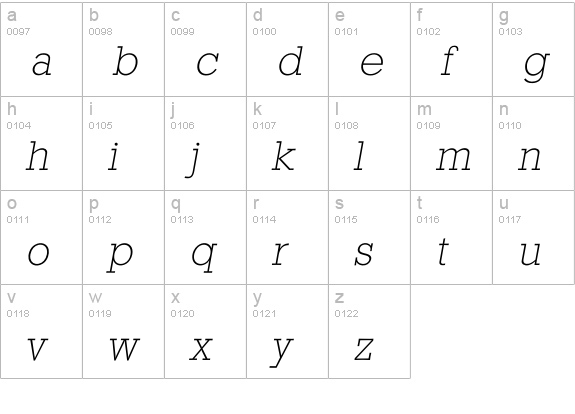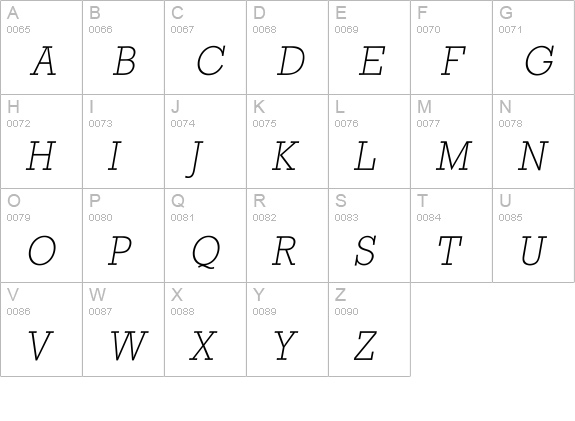
Introducing the mesmerizing Istafford Xlight font, a captivating typeface that exudes elegance and sophistication. With its delicate and slender curves, this font effortlessly captures attention and adds a touch of refinement to any design project. Istafford Xlight is a font that is truly one-of-a-kind. Its unique design combines the classic elements of a serif font with a modern twist, resulting in a harmonious blend of tradition and innovation. The thin strokes and subtly rounded edges give this font a delicate and graceful appearance, making it perfect for projects that require a refined and polished aesthetic. One of the most exciting aspects of Istafford Xlight font is that it is absolutely free! That's right, this stunning typeface can be freely downloaded at FontsMarket.com. Whether you are a professional designer, a student, or an enthusiast, you can now access this remarkable font without any cost. This means that you can incorporate the elegance and sophistication of Istafford Xlight into your projects without breaking the bank. With its versatility and timeless appeal, Istafford Xlight can be used in a wide range of design applications. From branding and logo design to editorial layouts and elegant invitations, this font will elevate any project to new heights. Its clean and legible letterforms make it suitable for both large and small sizes, ensuring that your message is conveyed with clarity and style. When it comes to adding a touch of sophistication to your designs, Istafford Xlight font is the ultimate choice. Its subtle curves and refined proportions will instantly elevate the visual appeal of your work, making it stand out from the crowd. So why wait? Download Istafford Xlight today and unlock the endless possibilities it offers. Remember, it's free and readily available at FontsMarket.com.